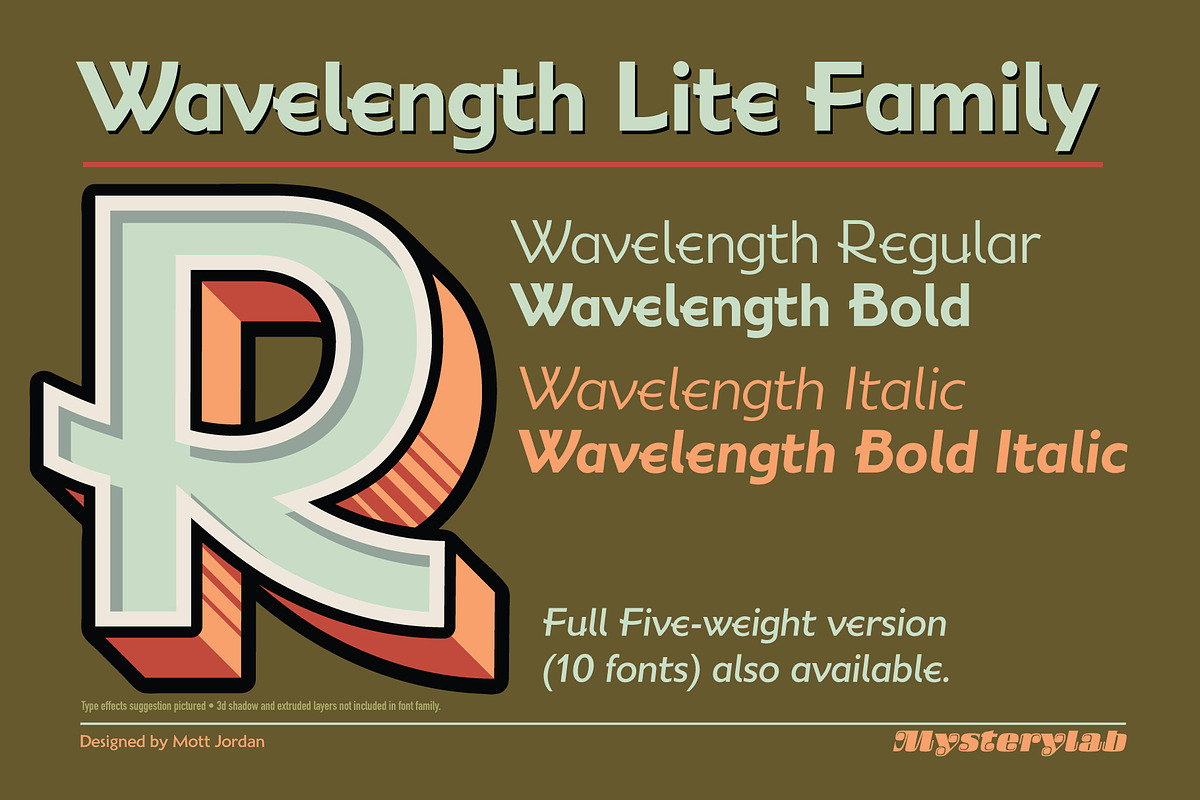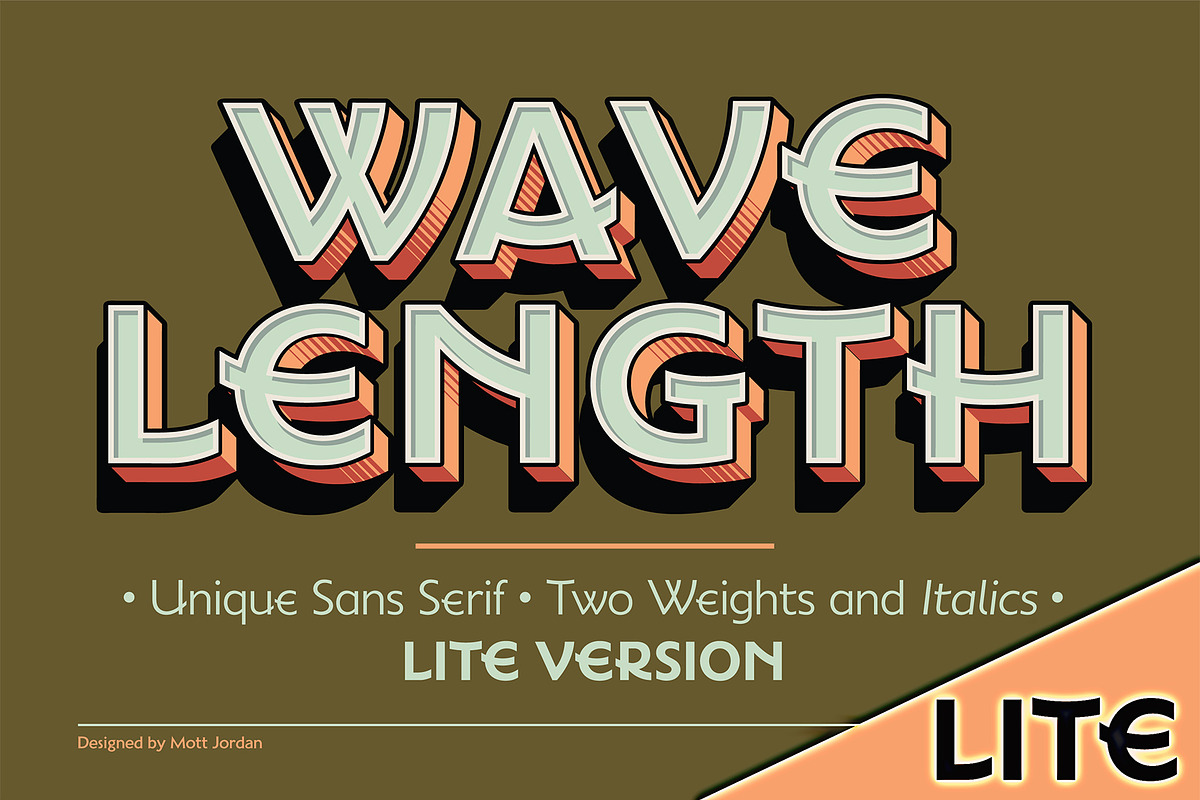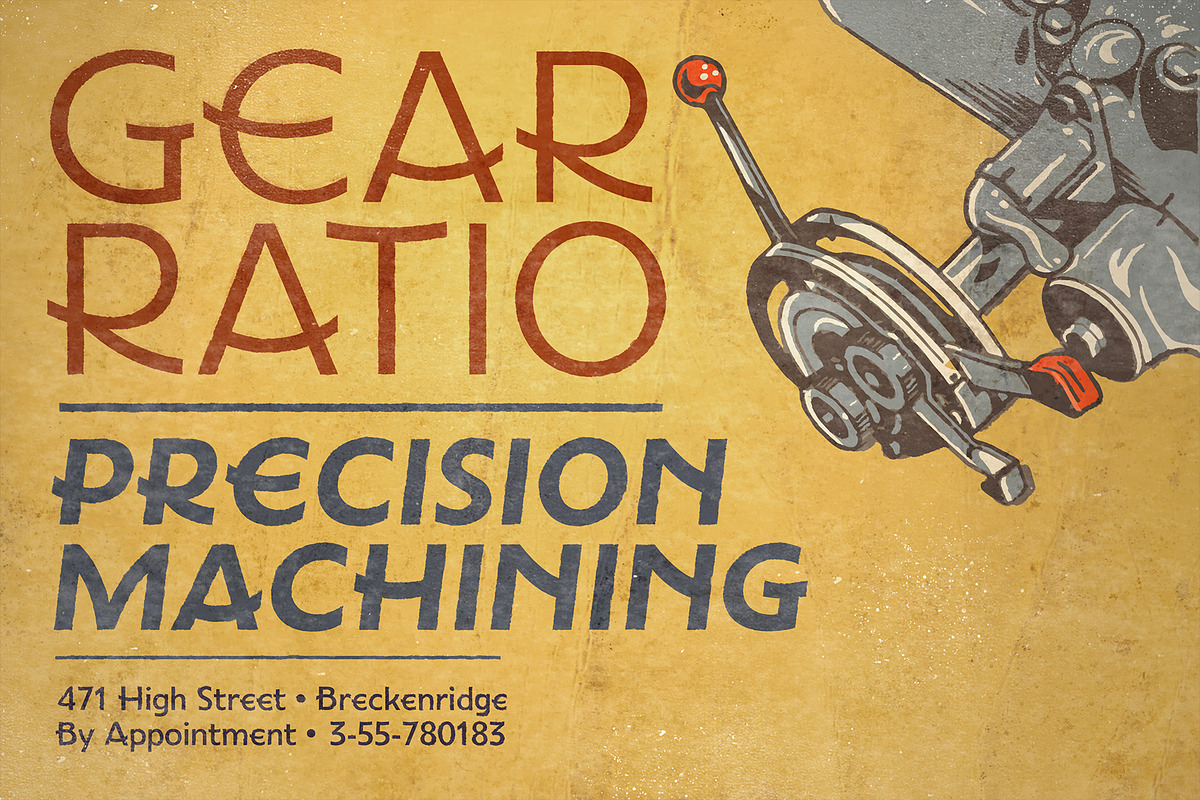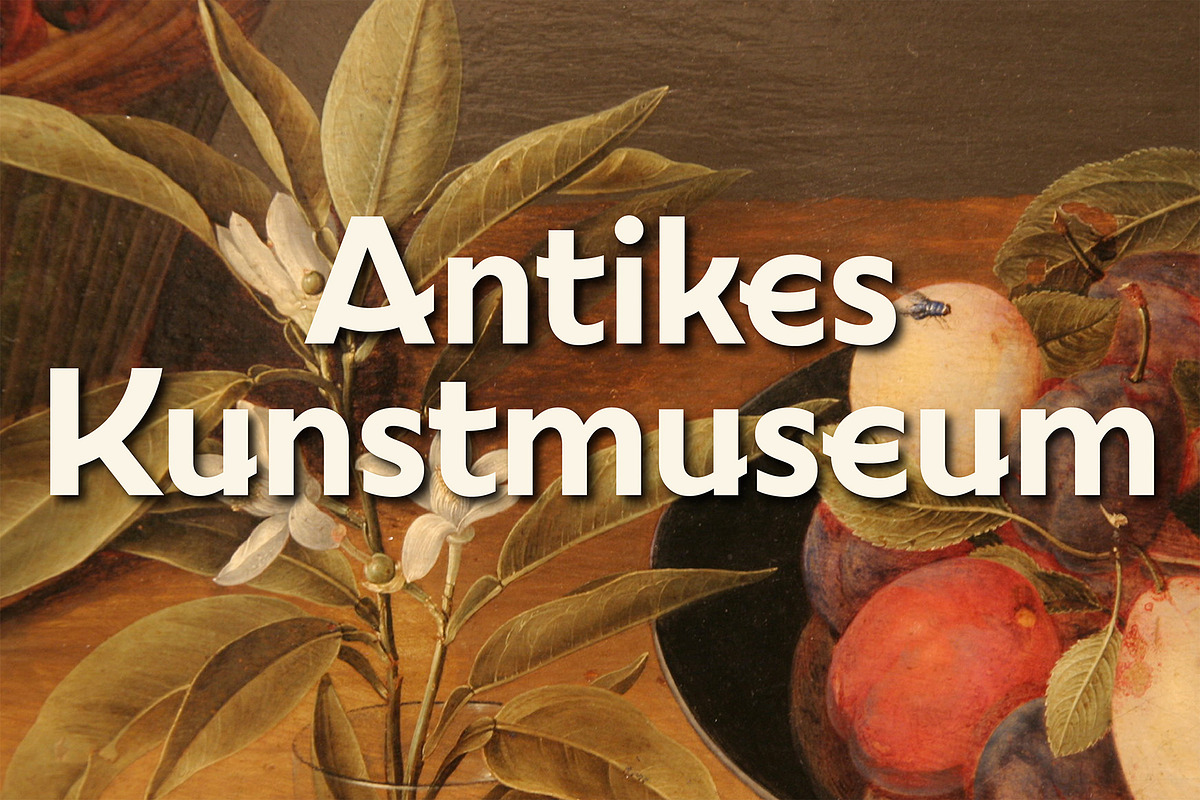
Wavelength Font Family Lite
Wavelength Lite is the 4-font version of the full family of 10 fonts. With a unique and unusual flair based on an interplay of straight strokes and arced strokes, Wavelength creates a lively interplay and flow, while remaining extremely legible at both display and text sizes. The design brings together elements of 2020s ultramodern style with 1930s art deco, and a hint of 1990s typographic tech-futurism. Great for eye-catching headlines, logotypes, and banners.